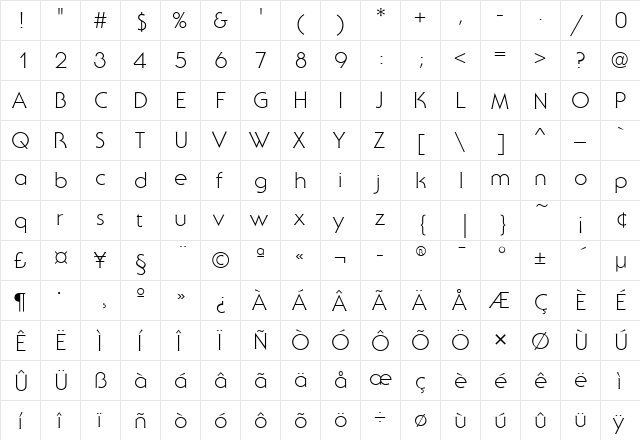
SerifGothicITC Light
Design Context for SerifGothicITC Typeface
SerifGothicITC brings classic typographic sensibility to the table — its serifs and measured letterforms reflect centuries of print heritage. The delicate stroke weight brings airiness and refinement to layouts.
Pro Tip: Set SerifGothicITC at slightly larger body copy sizes than you would a regular-weight serif to compensate for its delicate stroke contrast.